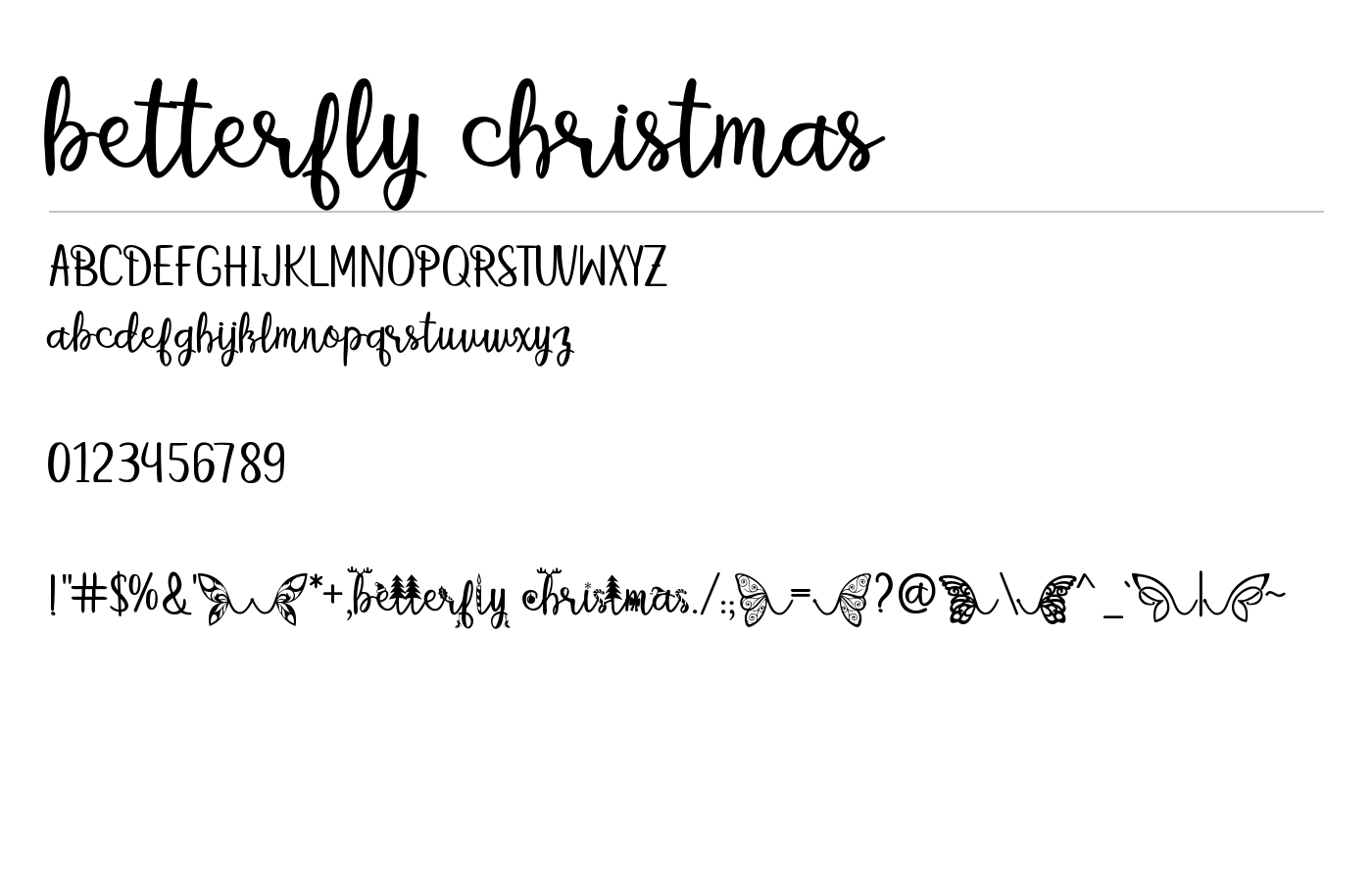
Betterfly Christmas is a playful and charming script font with a handwritten feel, featuring smooth, flowing strokes and whimsical decorative elements like butterfly and holiday-themed icons. Its light weight and tall, narrow letterforms give it an elegant yet casual personality, perfect for festive designs and cheerful branding. This font works well for holiday cards, invitations, packaging, and any creative project seeking a joyful, friendly touch.
betterfly christmas Font
About betterfly christmas Font